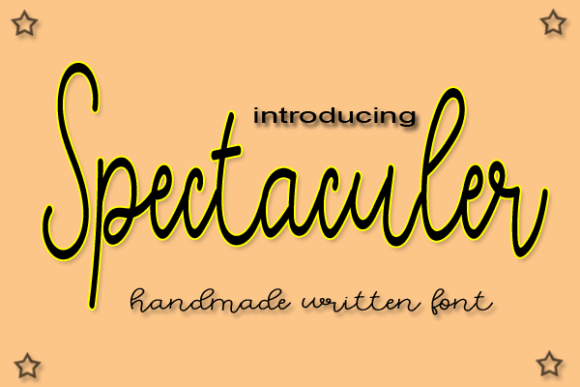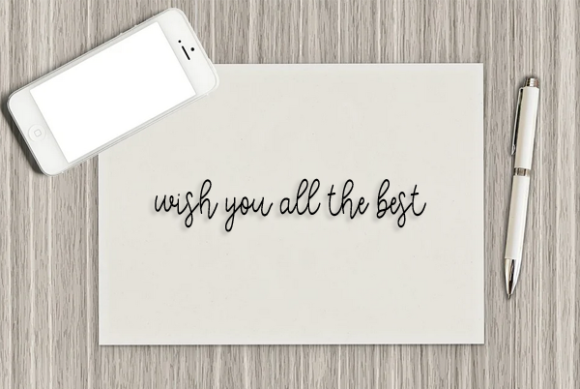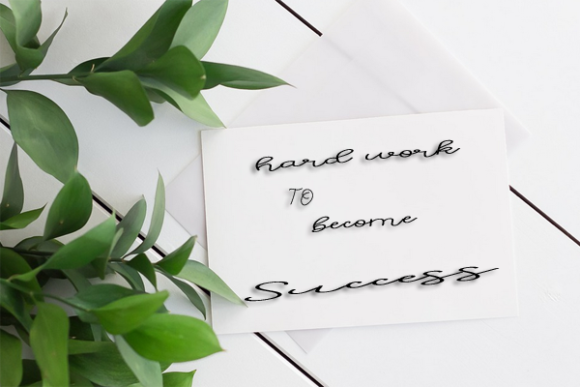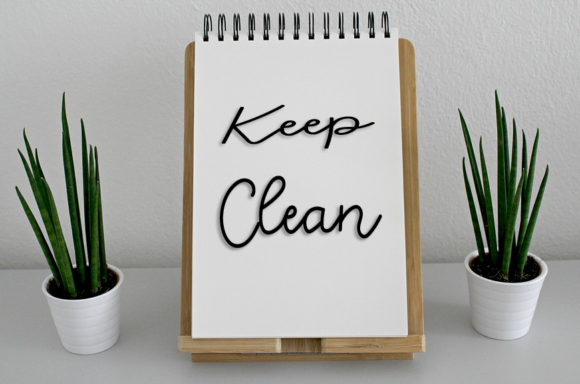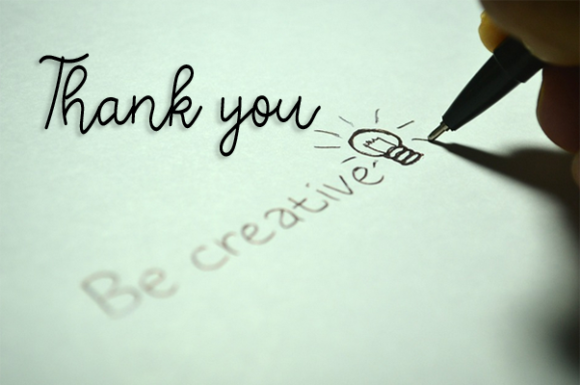
Spectaculer Font
About Spectaculer Font
Spectaculer is a unique themed, skinny handwritten font. Simple but with a strong visual effect, this font will instantly make your creation more appealing than any others.